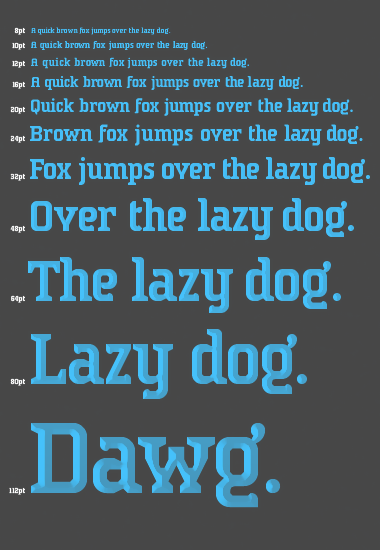
A pixel-friendly semi-condensed slab serif fontstruction. Deceptively simple in appearance, variable stroke thickness is achieved through advanced filters and a one-brick stroke thickness for vertical strokes.
I kept the spacing tight (and at an integer value) so it works decently well as a pixel font down to 8 pt (at 72 ppi this gives an x-height of four pixels and a breezily condensed form). Some funky spacing issues remain without kerning pairs. Kern as desired and remember to have some fun with it!
@djnippa: True, kerning as of yet still can’t be finessed here : (. Non-integer global spacing adjustments also blurs pixel rendering, so I cut my losses and locked the default letter spacing to 0. The resulting serifs that touch look a bit weird at all but the smallest preview zooms. However, I am particularly pleased with the pixel rendering it enables.
Check out the Gallery view zoomed exactly one notch above the “pxl” size to test drive iSlab with very sharp and sturdy pixel rendering. The two-brick stroke thickness (same as 16pt sample above) reveals the fontstruction’s use of 2x2 scaled bricks. Yet underneath these 2x2 bricks is a grid half the size. Put another way, the 8pt sample, a smaller sharp pixel rendition, has an x-height of only four pixels. The serifs melt with buttery goodness into the letter spaces at this scale by literally becoming them.
@p2pnut: I do have fun exploring the compelling field of small scale geometry and the unexpected possibilities they open up. My hat’s off to you for your awe-inspiring work that pushes another limit, that of rendering texture and irregularity within fontstruct. I still can’t believe what you achieved with RM Old Typerighter. If my experiments and innovations benefit you, I am happy for it. : )
Very tight spacing though kerning is lacking,
Stylish details that are suited for kings,
These are a few of my favorite things.
Seriously, master craftsmanship here, Will. I'm surprised, but I shouldn't be surprised knowing its from you. The detailed bars on the E and F. The bottom right of the N. The bottom of the V. Even the asterisk. All methodically and artistically constructed. Generous ink trappage. Sophisticated brick stackage. Versatile scalability. It sings loud and strong while being subdued and in effortless control.
Some options, if I may:
Subtler ink traps can be achieved by using the inverse quarter circle curves instead of the smaller triangles on the XY. On the v, serifs on the bottom could match the w. But that's just my two cents. A fantastically melodic achievement.